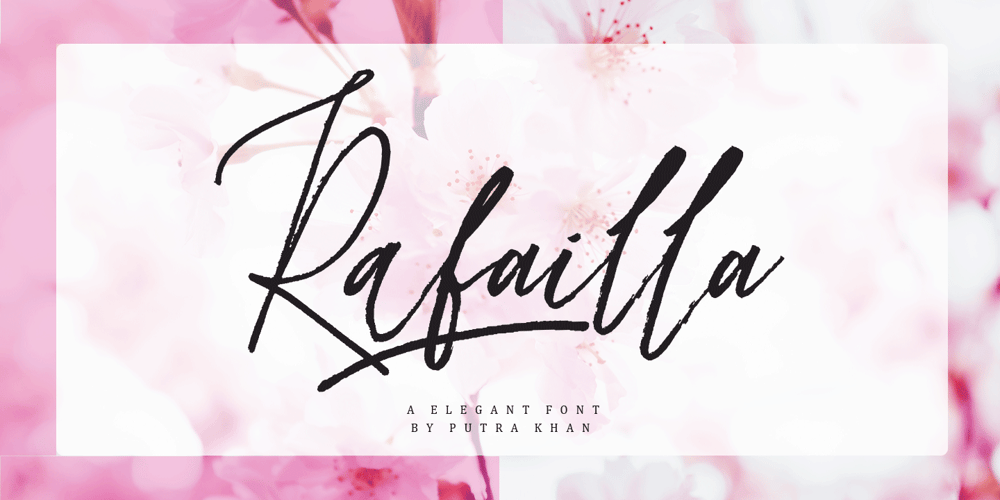
Rafailla Brush Script
Rafailla Brush Script font
Rafailla Brush Script Font Family was designed by Putra Khan and published by Mindtype Co.. Rafailla Brush Script contains 2 styles and family package options. Introducing my new font Rafailla is another elegant modern calligraphy typefaces, which is combining the style of brush calligraphy with an modern style and sophisticated flows. So beautiful on invitation like greeting cards, branding materials, wedding designs, social media posts, advertisements & product designs.